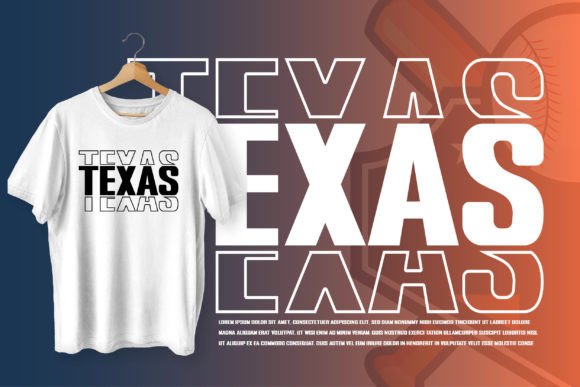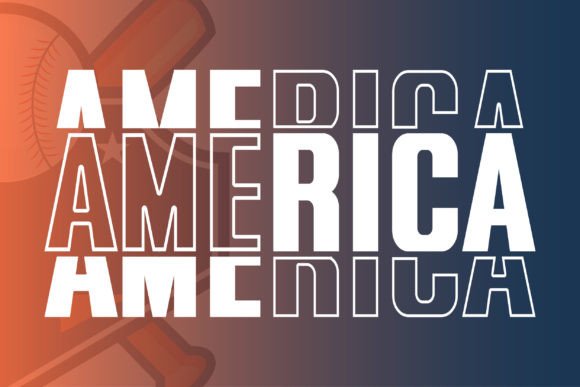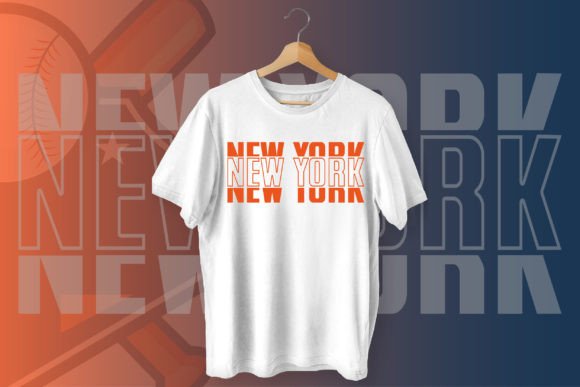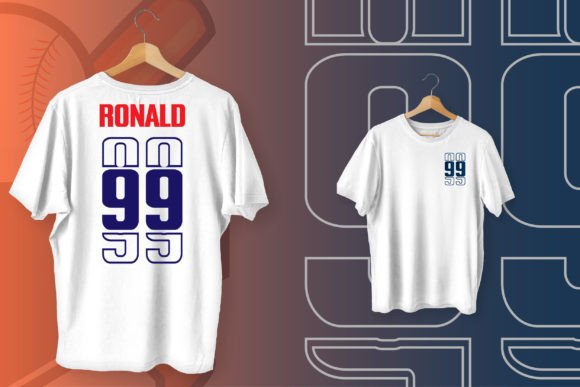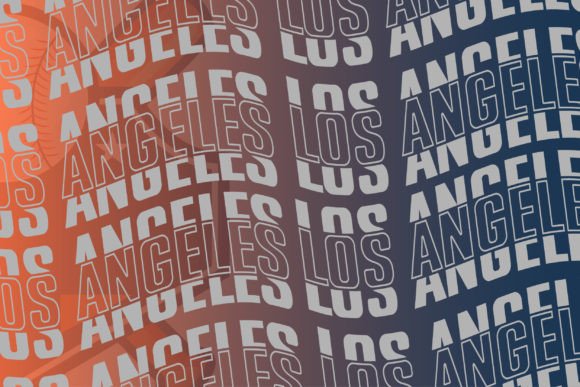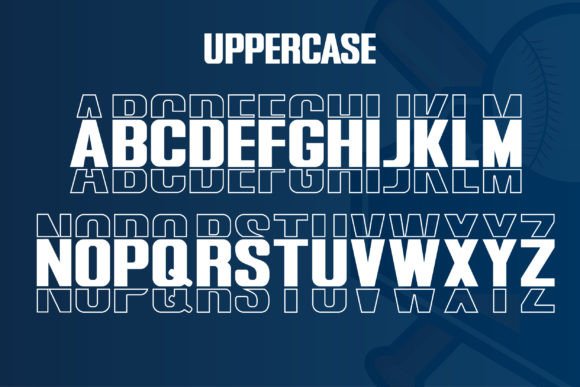
Introducing Baseball Stacked: The Ultimate Font for Sports-Themed Designs
Are you a designer or crafter looking for a font that can add a touch of energy and excitement to your sports-themed designs? Look no further than Baseball Stacked, a unique and captivating font that’s perfect for team representations, league introductions, athletic gear designs, and more. In this article, we’ll explore the features and benefits of Baseball Stacked, and how it can elevate your designs to the next level.
The Perfect Pair: Upper Case and Lower Case Characters
One of the standout features of Baseball Stacked is its striking combination of upper case and lower case characters. The upper case characters are unwavering and bold, while the lower case letters are lively and outlined. This perfect pair creates a visually appealing contrast that’s sure to grab attention. Whether you’re designing a logo, poster, or book jacket, Baseball Stacked’s unique character set is sure to make your design stand out.
Energetic and Versatile: Perfect for Sports-Themed Designs
Baseball Stacked is specifically designed with sports-themed designs in mind. Its energetic and lively vibe makes it perfect for team representations, league introductions, and athletic gear designs. But its versatility extends far beyond sports. This font can also be used for movie covers, documentary film titles, book jackets, posters, headlines, game art, and logos. Wherever you need to add a touch of energy and excitement, Baseball Stacked is the perfect choice.
Amplify Your Designs with Baseball Stacked
Baseball Stacked doesn’t just add a touch of style to your designs – it amplifies them. Its bold and lively character set creates a visual spectacle that’s sure to leave a lasting impression. Whether you’re designing for print or digital, Baseball Stacked is the perfect choice for anyone looking to create a striking and memorable design. Its aesthetic appeal is undeniable, and its versatility makes it a valuable addition to any designer’s toolkit.
Creative Avenues: Where to Use Baseball Stacked
So where can you use Baseball Stacked? The possibilities are endless! Here are just a few ideas to get you started:
- Team representations: Use Baseball Stacked to create bold and striking team logos, jerseys, and other merchandise.
- League introductions: Make a lasting impression with Baseball Stacked’s energetic and lively font.
- Athletic gear designs: Add a touch of style and sophistication to athletic gear such as water bottles, t-shirts, and hats.
- Movie covers: Use Baseball Stacked to create eye-catching movie covers and posters.
- Documentary film titles: Add a touch of energy and excitement to documentary film titles and credits.
- Book jackets: Make your book stand out from the crowd with Baseball Stacked’s bold and lively font.
- Posters: Create striking posters that grab attention with Baseball Stacked.
- Headlines: Use Baseball Stacked to add a touch of energy and excitement to headlines and titles.
- Game art: Add a touch of style and sophistication to game art and logos.
- Logos: Use Baseball Stacked to create bold and striking logos that make a lasting impression.
In conclusion, Baseball Stacked is a unique and captivating font that’s perfect for designers and crafters looking to add a touch of energy and excitement to their sports-themed designs. Its striking combination of upper case and lower case characters, energetic and lively vibe, and versatility make it a valuable addition to any designer’s toolkit. Whether you’re designing for print or digital, Baseball Stacked is the perfect choice for anyone looking to create a striking and memorable design. So why wait? Try Baseball Stacked today and see the difference it can make in your designs!